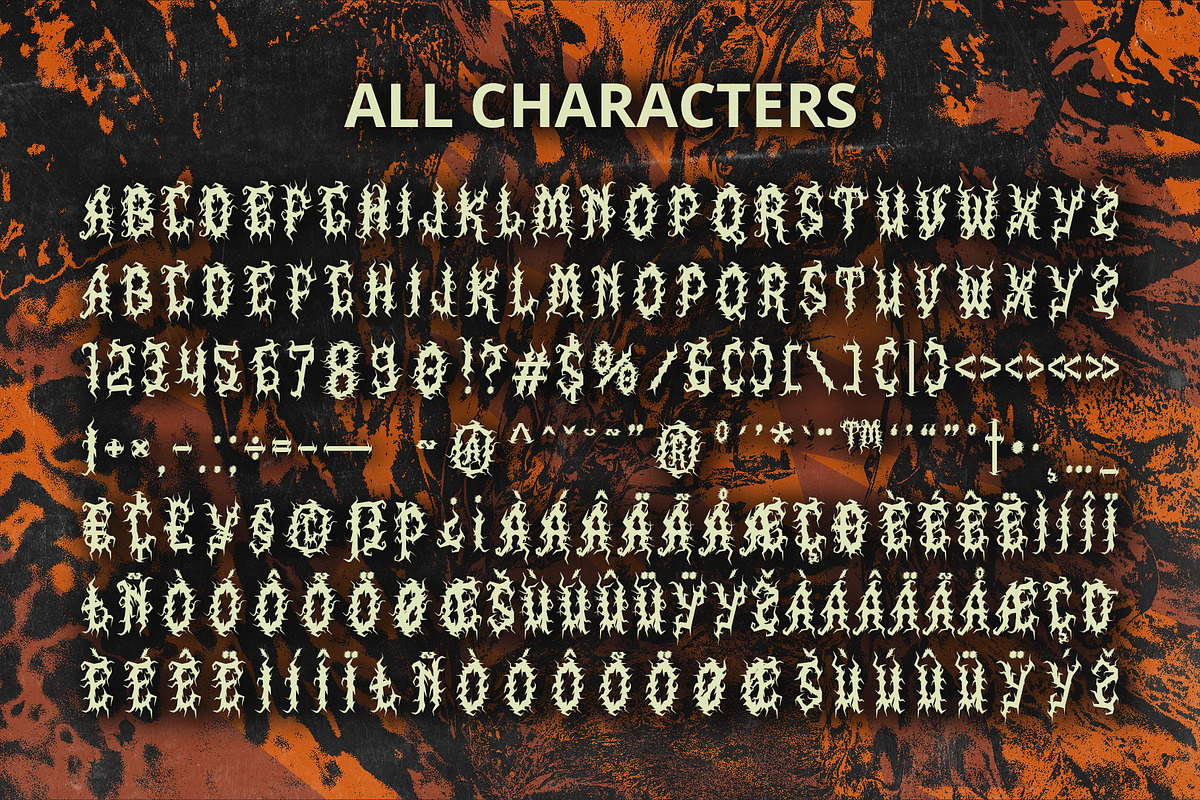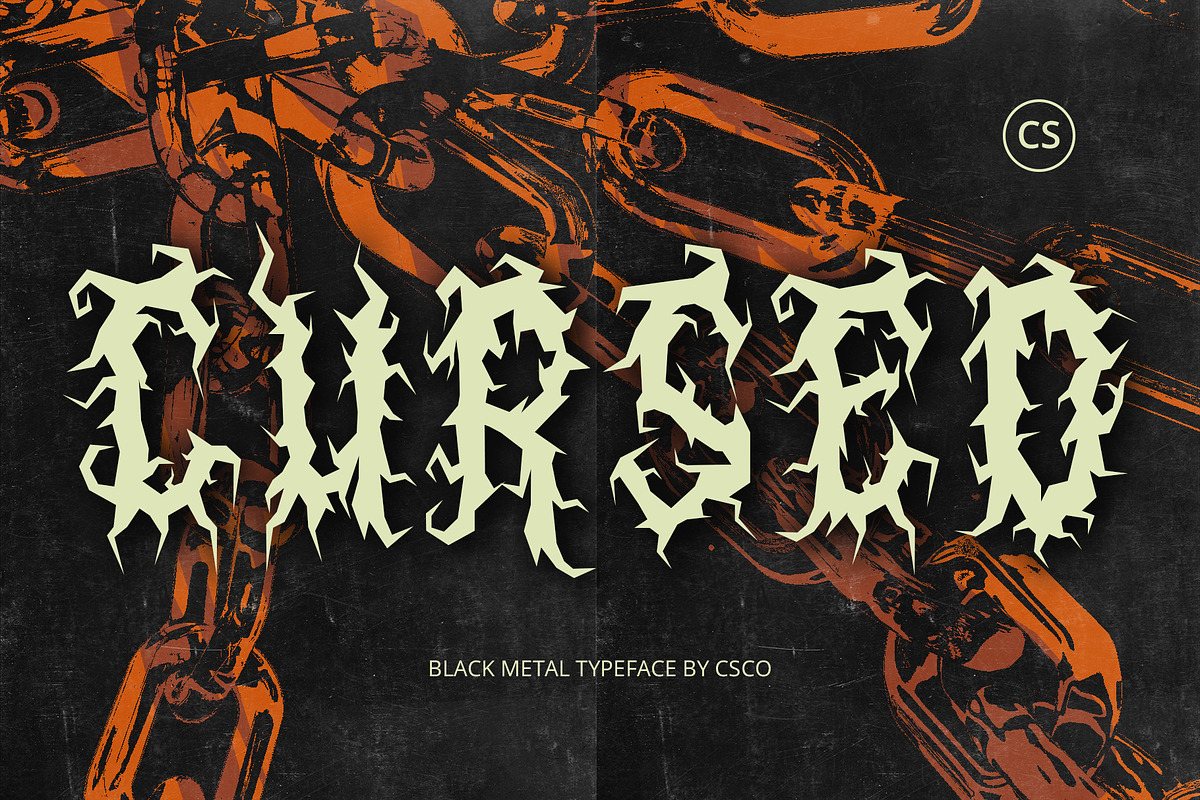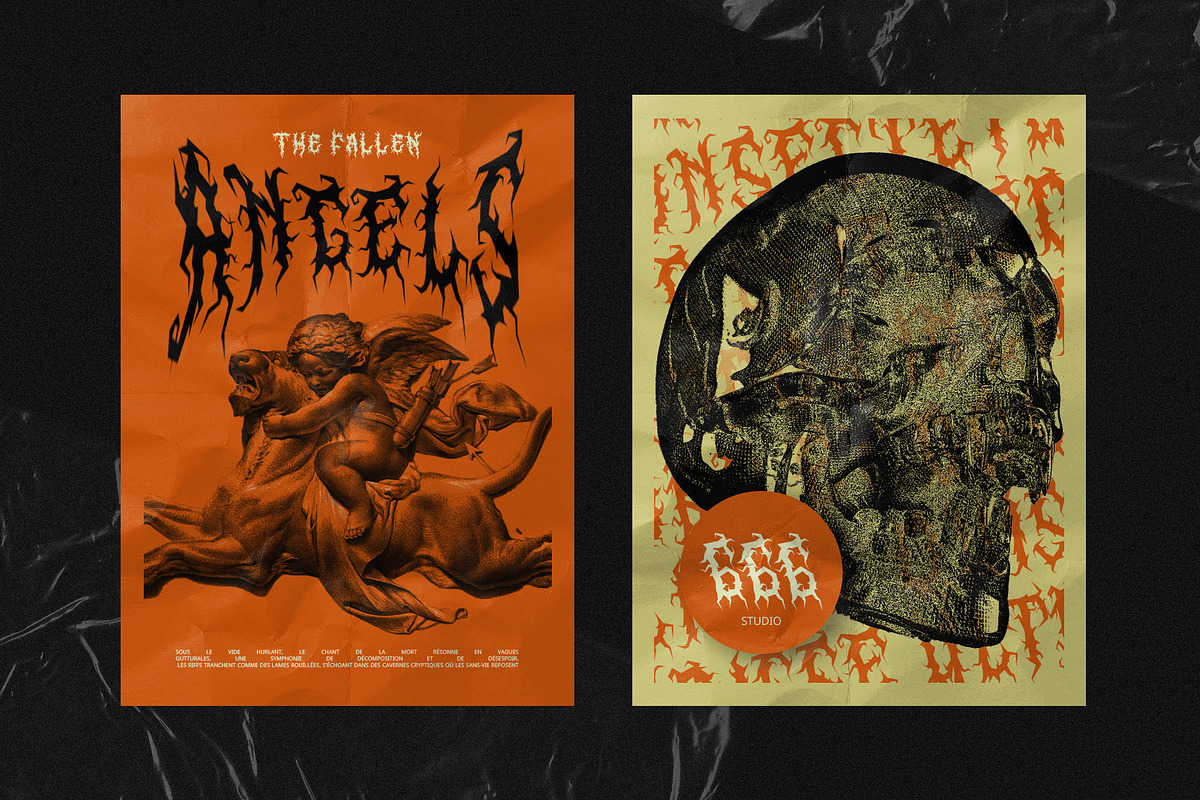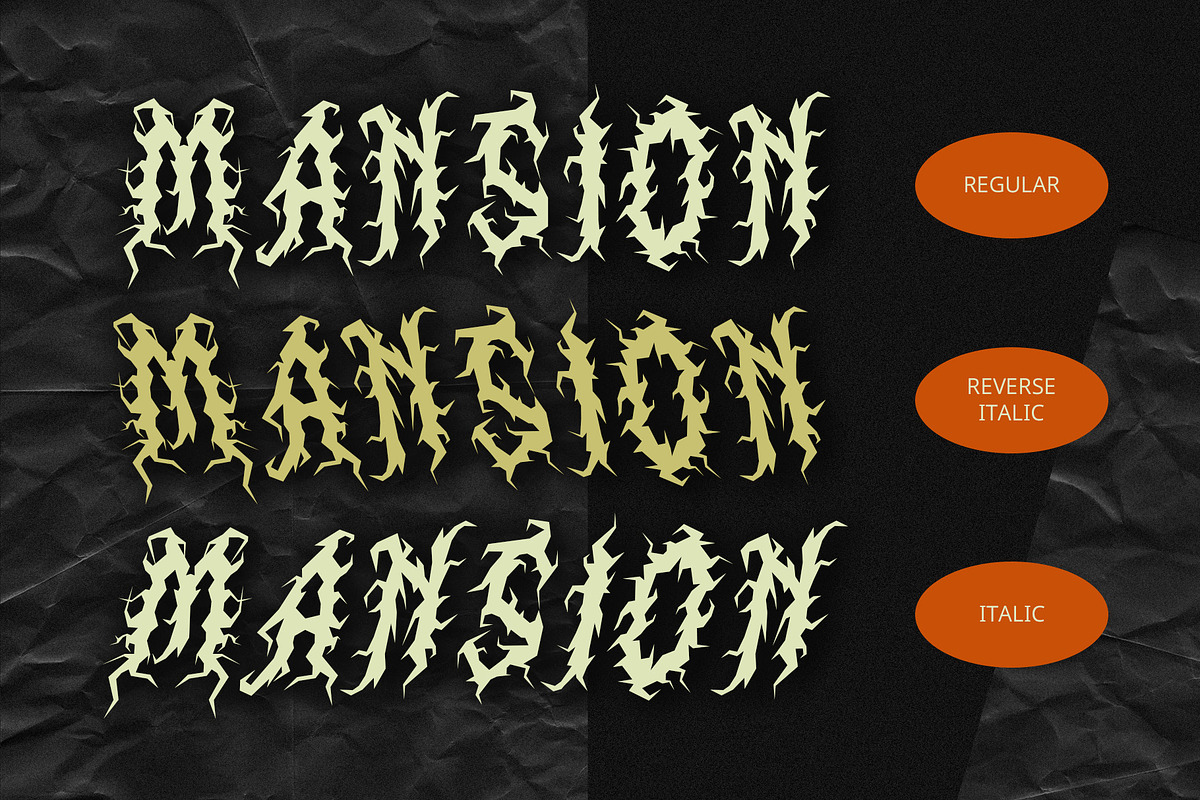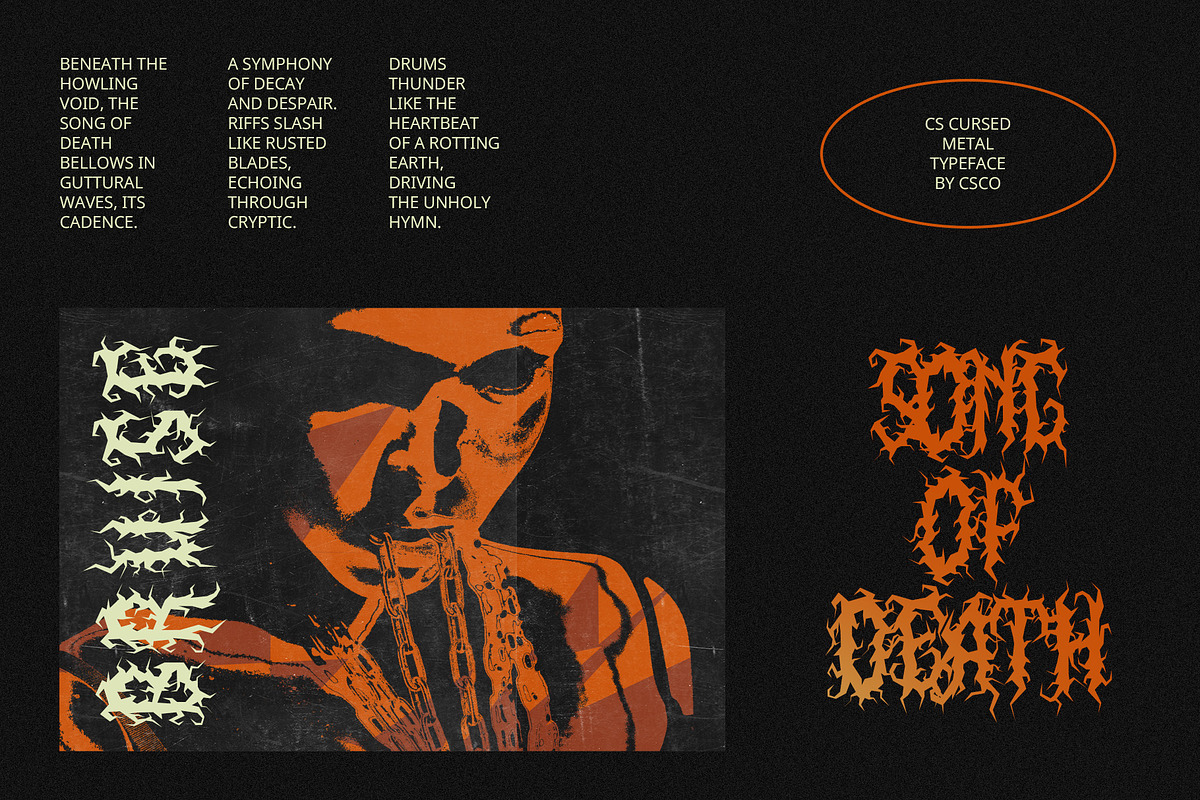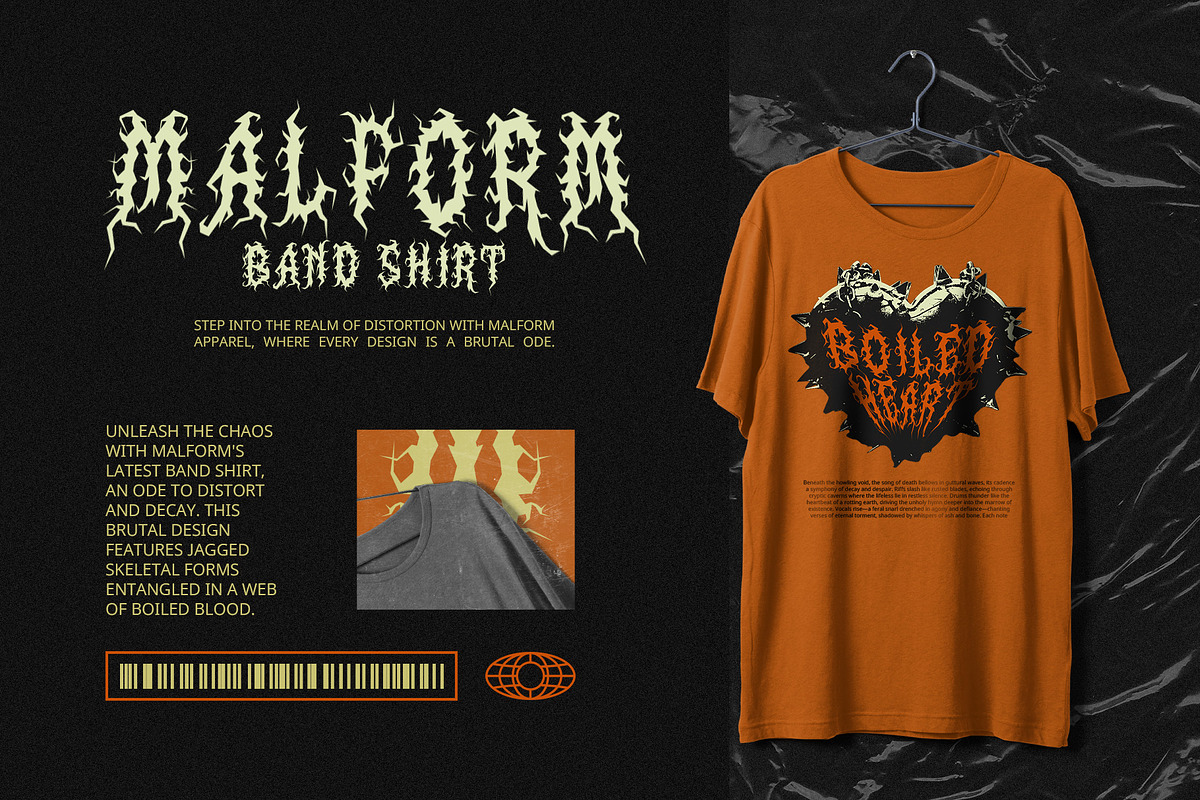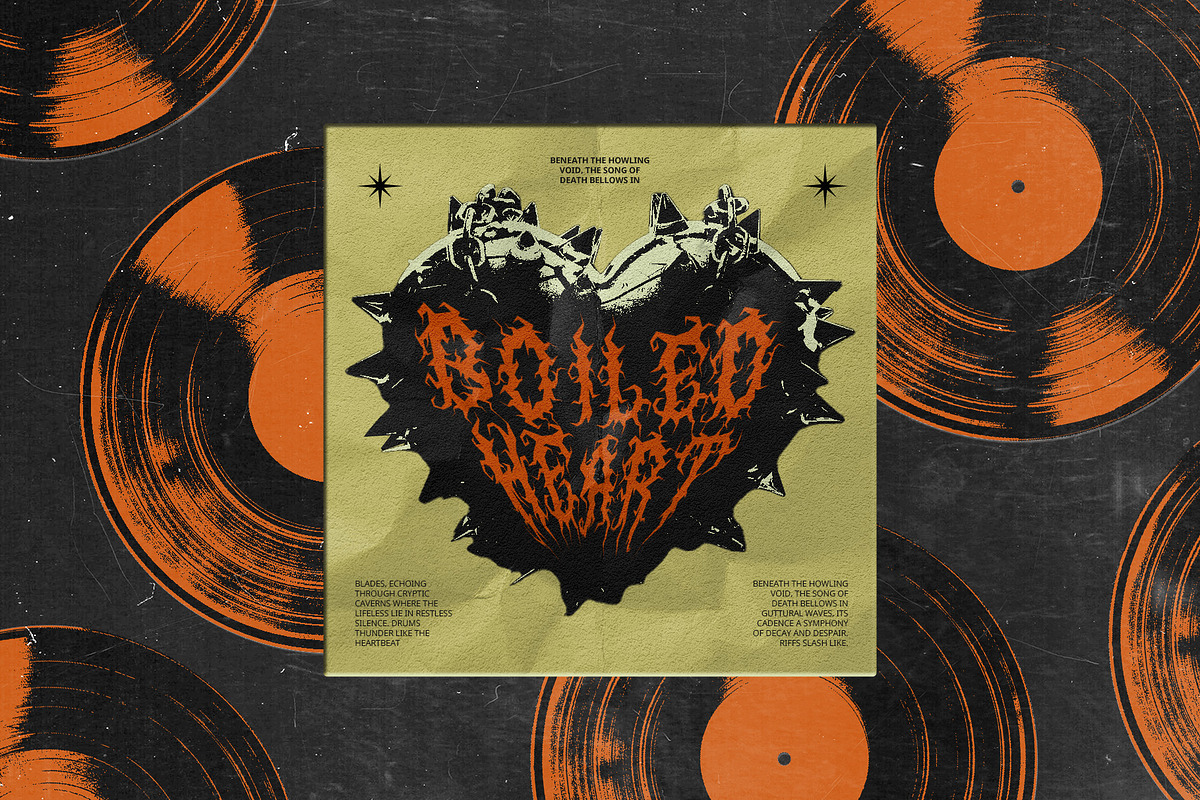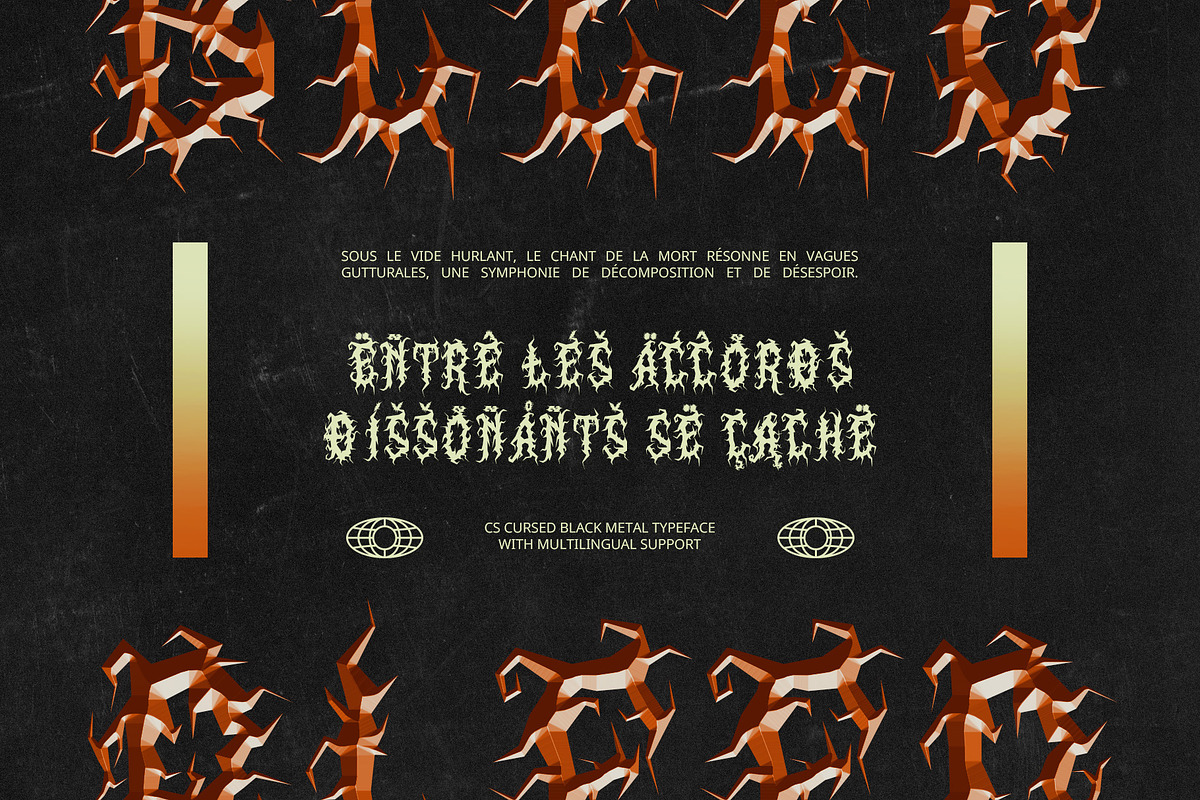
CS Cursed – Black Metal Font
CS Cursed – Black Metal Font: A Typeface of Darkness and Rebellion
Sharp, Intense, and Gothic CS Cursed is a striking black metal display font, defined by its sharp, jagged letterforms and fragmented, chaotic structures. Drawing inspiration from Gothic aesthetics and the raw intensity of underground culture, this font exudes an aura of rebellion and darkness, perfectly suited for projects seeking to convey an extreme and edgy vibe.
Perfect for Bold and Atmospheric Designs Designed for the boldest expressions, CS Cursed thrives in settings like black metal band logos, album covers, and concert posters. Its intricate details and distorted forms create an intense visual impact, making it a compelling choice for designs that channel the mystique and energy of extreme music genres.
Raw Power with an Underground Edge With its aggressive shapes and intricate Gothic details, CS Cursed adds an ominous and rebellious tone to any design. Whether for branding in alternative subcultures or for creating atmospheric artwork, this font captures the essence of intensity and raw emotion.
Versatile for Edgy Aesthetics From music-inspired projects to edgy, dark-themed branding, CS Cursed delivers a powerful and haunting presence. Its unique letterforms ensure that your designs stand out, resonating with audiences drawn to the unconventional and extreme
- CS Cursed Regular
- CS Cursed Italic
- CS Cursed Reverse Italic